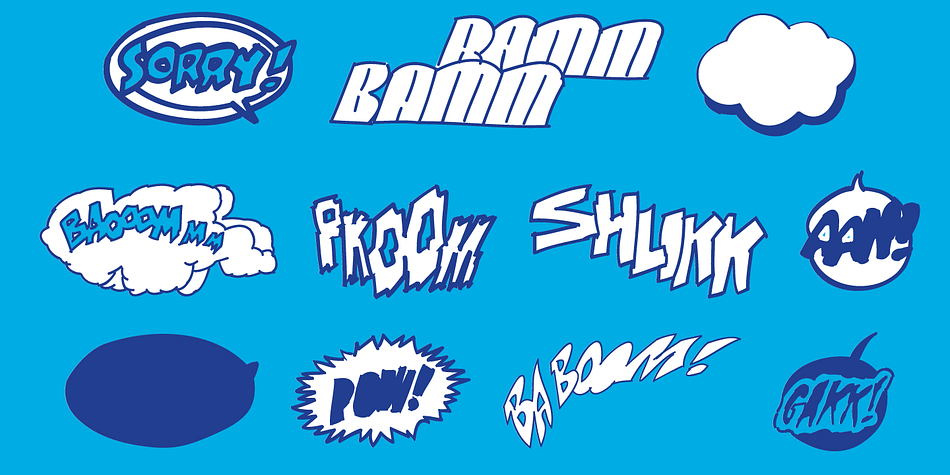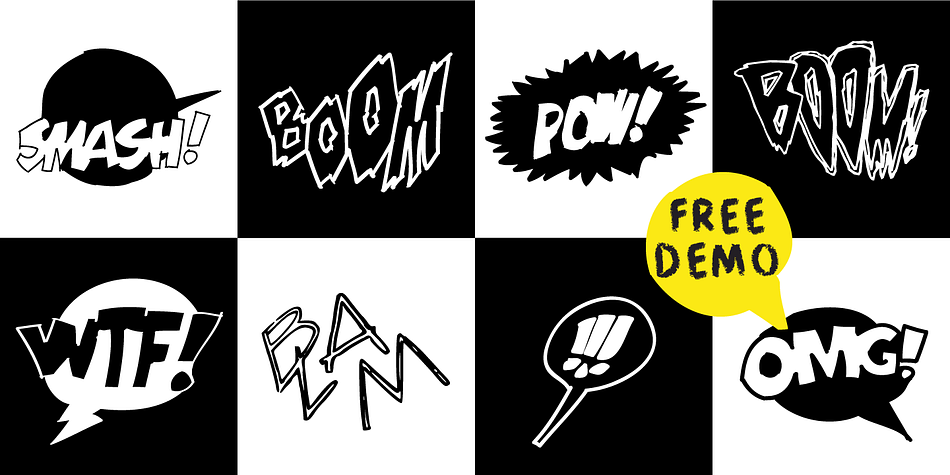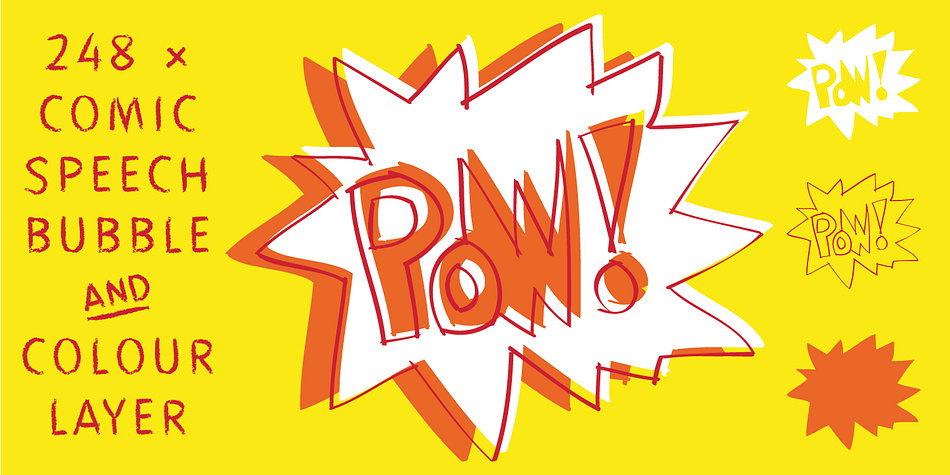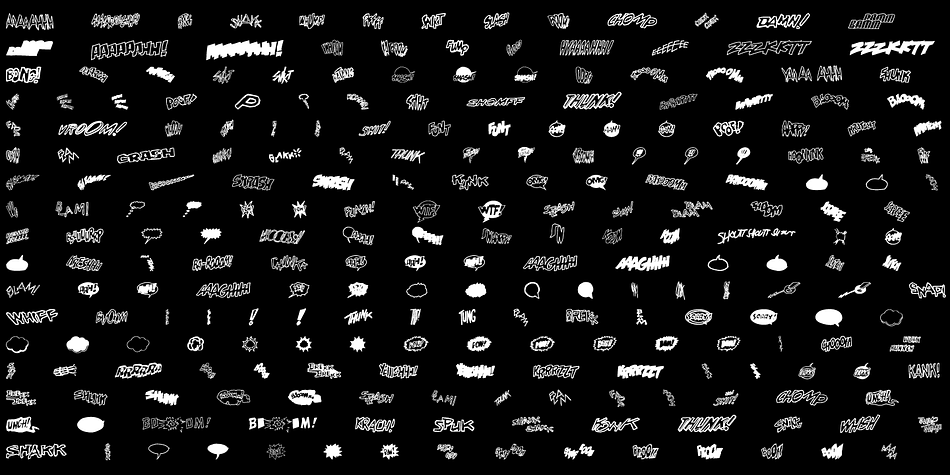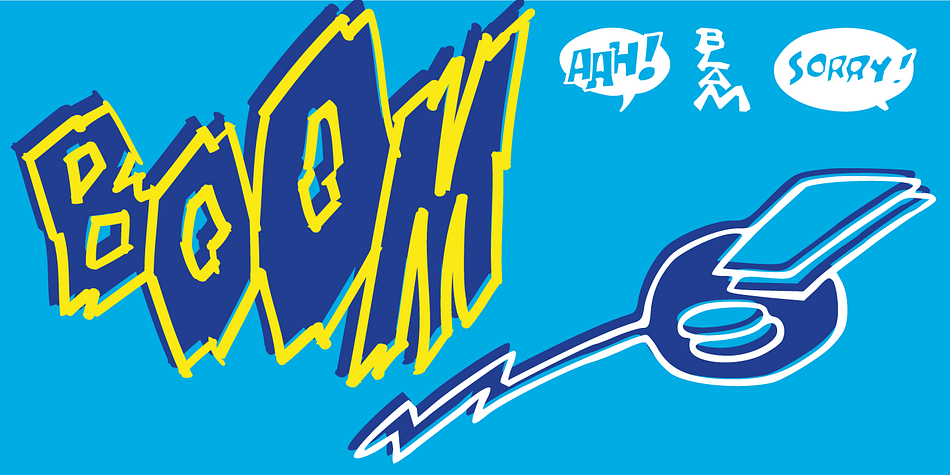
Designed by Manuel Viergutz, Boom peng Pow is a comic and dingbat font published by Typo Graphic Design.
The typeface Boom pang Pow is designed from 2020 for the font foundry Typo Graphic Design by Manuel Viergutz.
A collection of comic and pop art elements like Speech Bubbles Catch Words, Punction Symbols, Boom, Pow, Bang … with various layers for colouring.
1 font-style (Comic) with 248 glyphs (Adobe Latin 1).
For use in logos, magazines, posters, advertisement plus as webfont for decorative headlines. The font works best for display size.